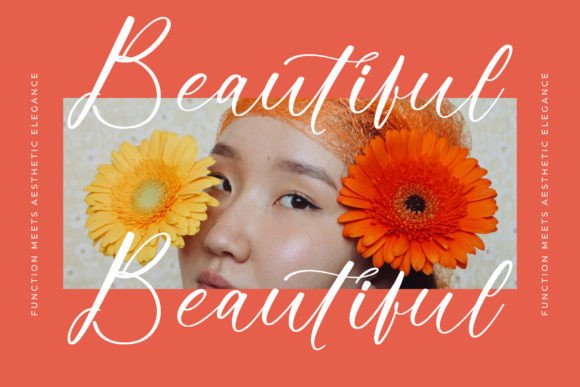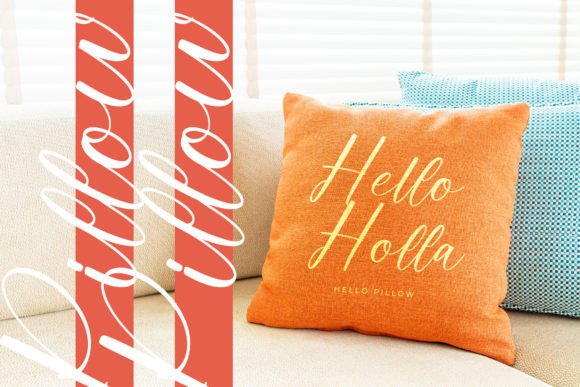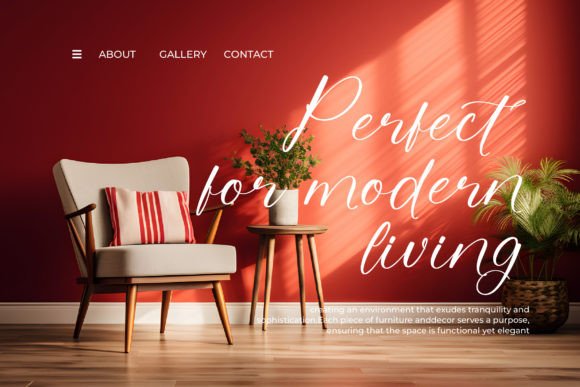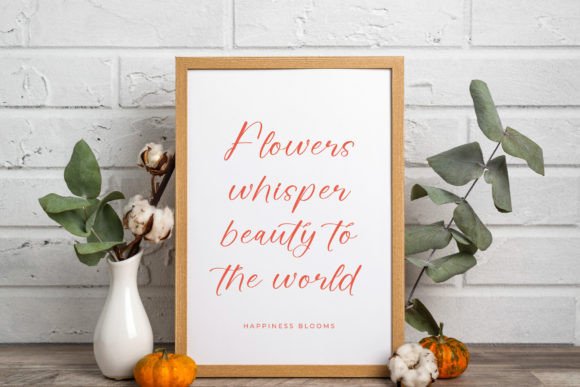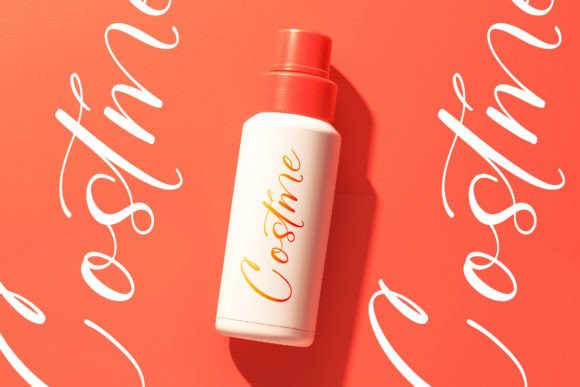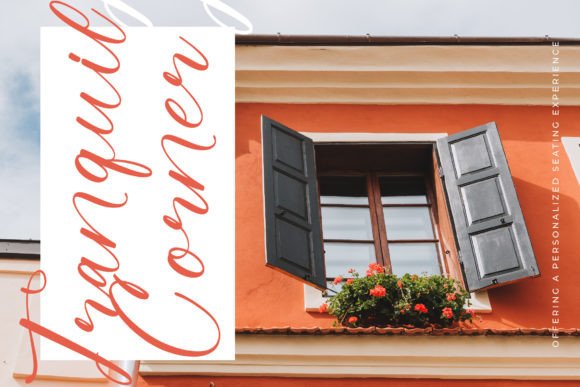
Eqatel Gacinta Font: Elevate Your Designs with Luxury and Elegance
In the world of typography, a font can make or break a design. For designers and crafters seeking to add a touch of luxury and sophistication to their projects, Eqatel Gacinta Font is an exceptional choice. This stylish handwritten font, crafted by Letterena, is a luxury script font that can elevate a wide range of projects, from logos and branding to packaging, posters, and more.
What is Eqatel Gacinta Font?
Eqatel Gacinta Font is a beautifully designed, handwritten luxury script font. Its elegant and flowing lines make it perfect for projects that demand a high-end aesthetic. Whether you’re working on a logo, a branding project, or a product design, this font is sure to add a touch of sophistication and glamour.
Key Features of Eqatel Gacinta Font
- Luxury Script Style: Eqatel Gacinta boasts a luxurious script style that can add elegance to any project.
- Handwritten: The font’s handwritten nature gives it a personal and unique touch, making it stand out from more traditional fonts.
- Versatile: Suitable for a wide range of projects, including logos, branding, homeware designs, product packaging, and more.
- High-Quality: Designed with high-quality and clarity in mind, ensuring it looks great in both digital and print formats.
Use Cases for Eqatel Gacinta Font
The versatility of Eqatel Gacinta Font makes it suitable for numerous applications. Here are some of the projects where this font can truly shine:
- Logos and Branding Projects: Create a memorable brand identity with a logo that exudes luxury and elegance.
- Homeware Designs: Add a touch of sophistication to your homeware designs, such as on ceramics, glassware, or textiles.
- Product Packaging: Elevate your product packaging to convey a sense of luxury and premium quality.
- Mugs, Quotes, Posters: Perfect for decorative items and motivational quotes that demand a stylish and elegant look.
- Shopping Bags, T-Shirts, Book Covers: Great for merchandise and apparel that needs to stand out with a luxurious feel.
- Name Cards, Invitation Cards, Greeting Cards: Ideal for creating personalized and elegant cards for any occasion.
- Labels, Photography, Watermarks: Use it for labels that need a touch of elegance or as a watermark to add a professional touch to your photographs.
- Special Events: Perfect for designing materials for special events, such as weddings, galas, or corporate events, where a luxurious feel is paramount.
Why Choose Eqatel Gacinta Font?
Choosing Eqatel Gacinta Font for your projects comes with several benefits:
- Unique and Distinctive: Its unique and distinctive style ensures your designs stand out.
- Easy to Read: Despite its elegant and cursive nature, the font remains clear and easy to read.
- Support for Multiple Languages: Offering support for multiple languages, making it a versatile choice for global brands and projects.
Eqatel Gacinta Font by Letterena is a stunning luxury script font that can add a touch of elegance and sophistication to a wide array of design projects. Its versatility, readability, and beautiful design make it an excellent choice for designers and crafters looking to create high-end designs. Whether you’re working on a branding project, product packaging, or a special event, Eqatel Gacinta Font is sure to meet your needs and exceed your expectations.